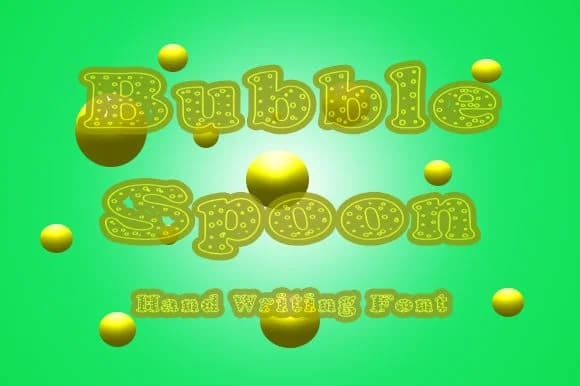
About Bubble Spoon Font
Bubble Spoon by F2 Gallery is a bouncy script that brings playful personality to display work. The rounded letterforms have real character without sacrificing readability, which makes it work equally well in headlines as it does when you need actual text to be legible. You'll find yourself reaching for this one when designing wedding invitation suites, hand-lettered product labels for e-commerce sellers, or custom signage for small shops and studios looking to stand out. It has that approachable energy that makes designs feel warm rather than stiff, which is harder to achieve than it sounds.
This script handles both caps and lowercase with a consistent bounce and weight, giving you flexibility across different layout scenarios. It's equally at home on boutique packaging design, DIY craft projects, or anywhere you need a typeface that feels personal without veering into absolute chaos. The playful nature makes it work beautifully for brands targeting a younger, creative audience, though there's enough control in the letterforms that it still reads polished in more refined contexts. Social media graphics benefit from its personality too, since the character comes through even at smaller sizes. If you want your design to feel alive without looking unprofessional, this is worth testing.
Bubble Spoon Font is a script font that shines as a display or heading face. Pair it with a clean sans-serif or serif font for body text β the contrast creates a clear hierarchy while the two styles stay balanced and easy to read.
Bubble Spoon Font